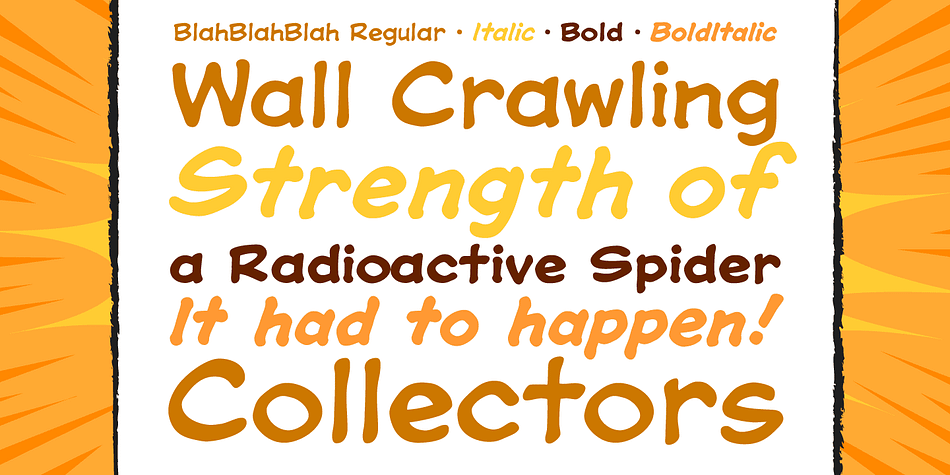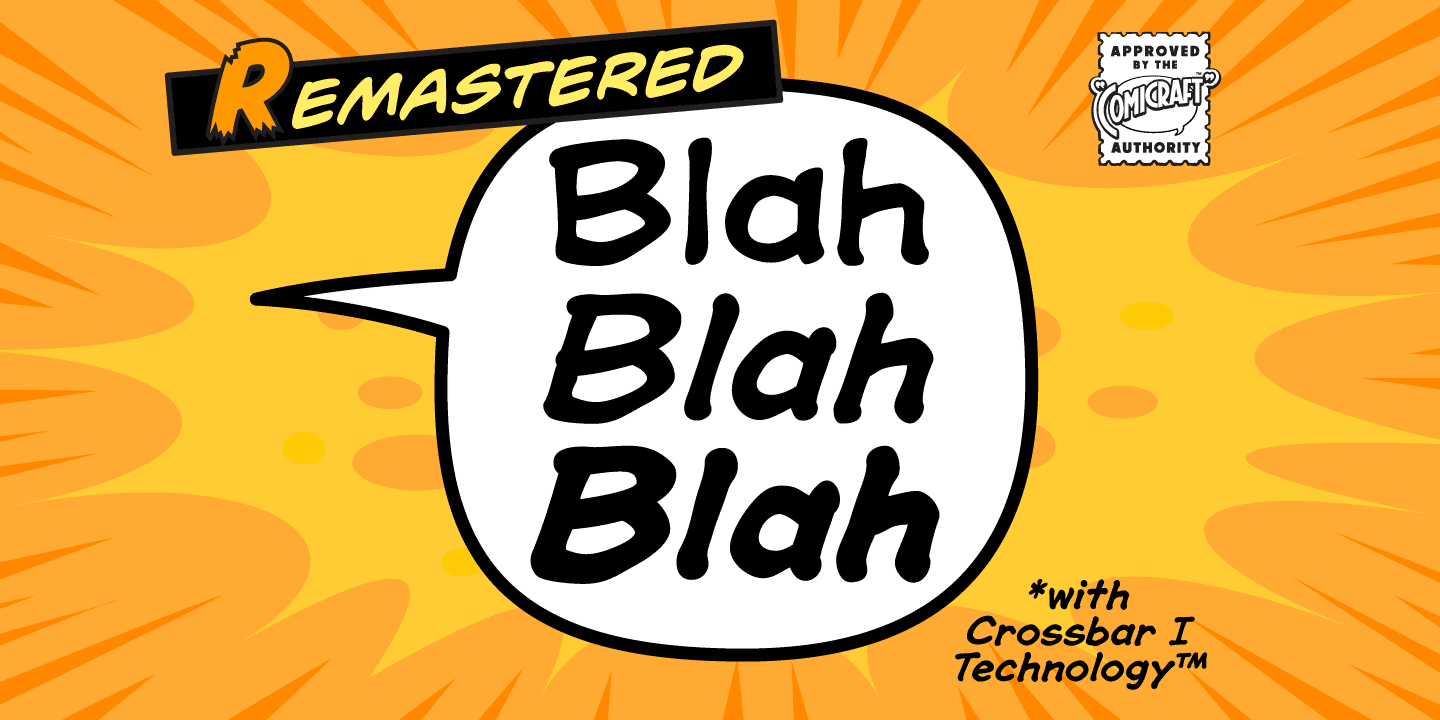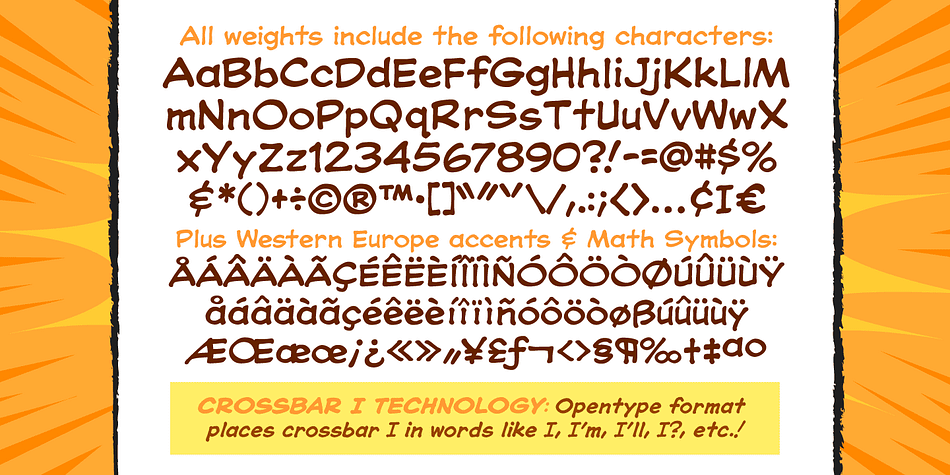
Designed by John Roshell, Blah Blah Blah is a comic and hand drawn font family. This typeface has four styles and was published by Comicraft.
It Had to Happen! Here Comes The World’s Greatest Comic Book Font! It’s A Collector’s Item Classic! It’s One of Comicraft’s Greatest! You Wanted Our Silver Age Style Font—last seen in the Pulse Pounding Pages of DC’s SUPERBOY and Marvel’s FLASHBACK titles—and Now You’ve Got It! Three Thrilling Feature-Length Fonts! They’re the Strangest Sans Serif Fonts of All! Proof Yet Again That This is Indeed the Comicraft Age of Comics! Etcetera, etcetera, Blah Blah Blah…